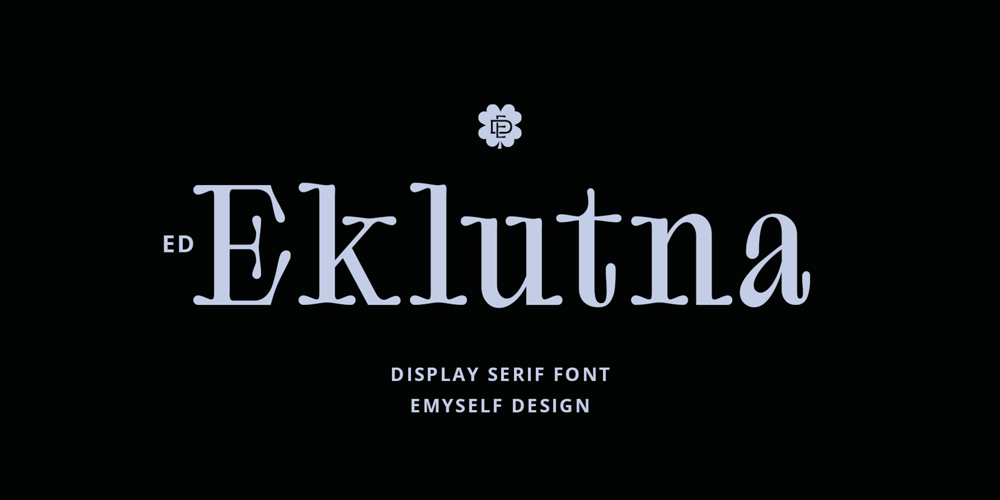
ED Eklutna
ED Eklutna font
ED Eklutna Font Family was designed by Eko Setiawan and published by Emyself Design. ED Eklutna contains 1 styles and family package options. ED Eklutna is a serif display font with a rounded style that gives it a unique, retro and modern look. has several features such as alternative characters, ligatures and multi-language support that makes it easy to use and combine with other fonts.This font is perfect for logo designs, moodboards, magazines, books, apparel, branding, posters and your other projects.